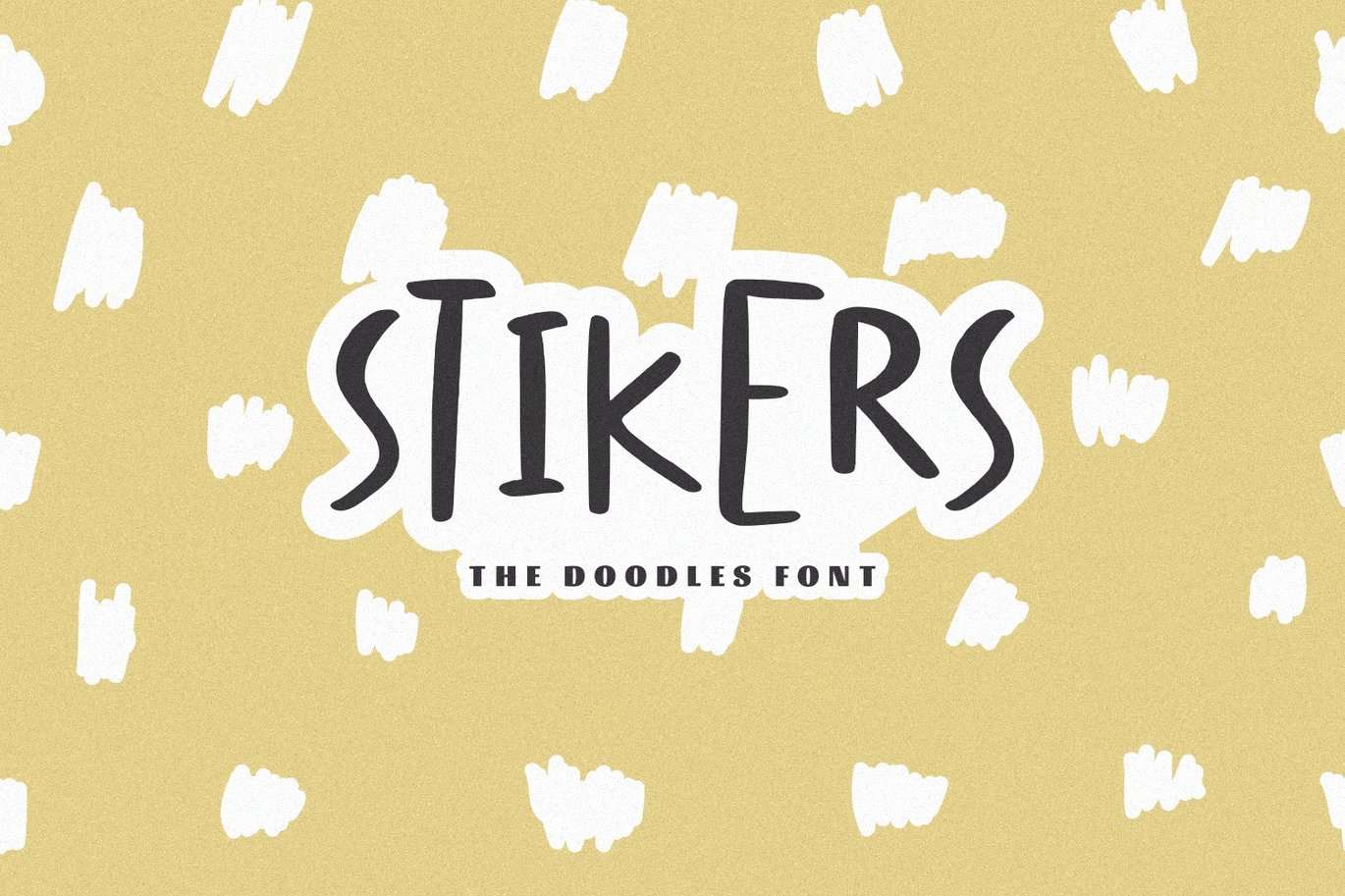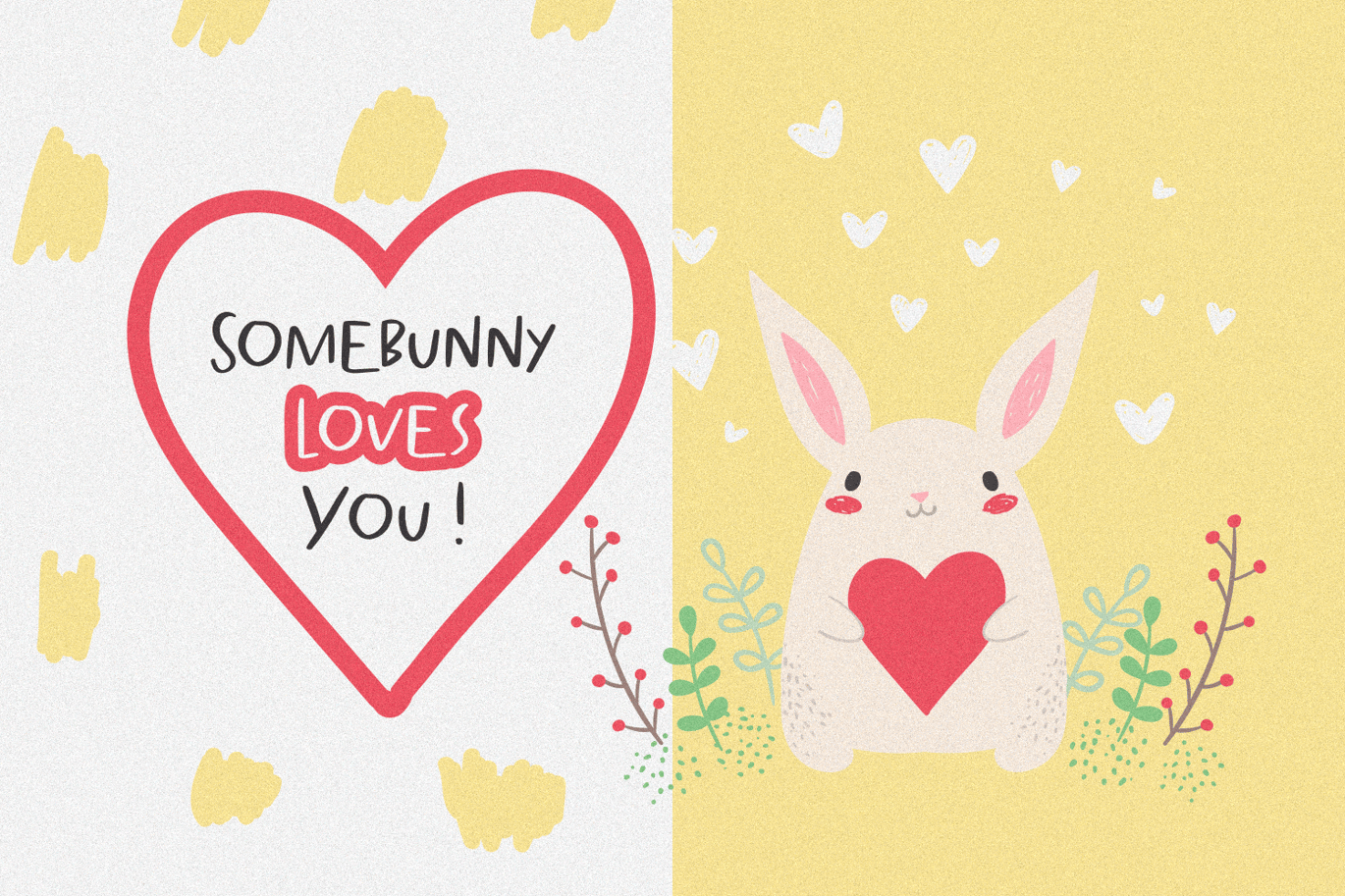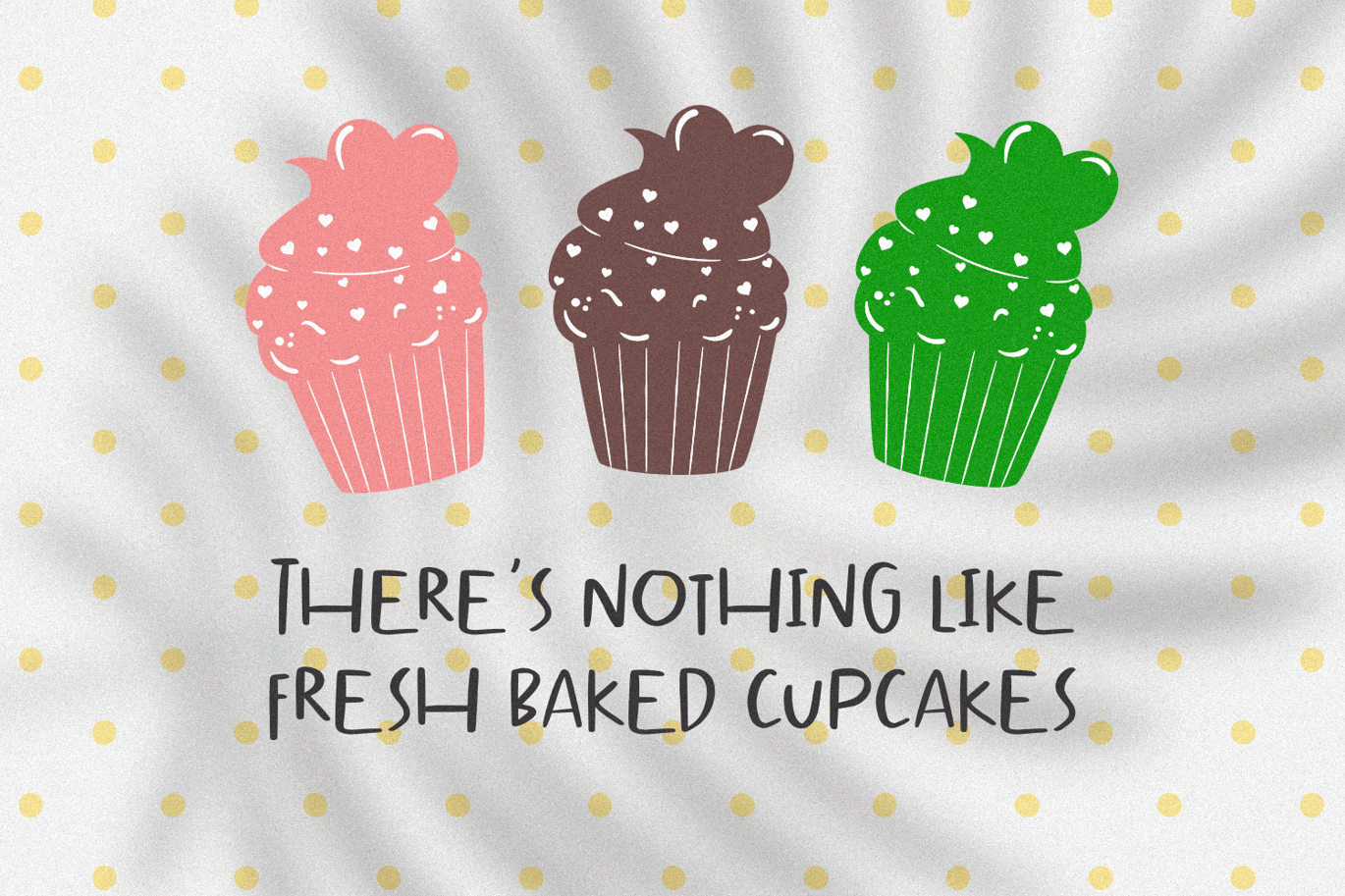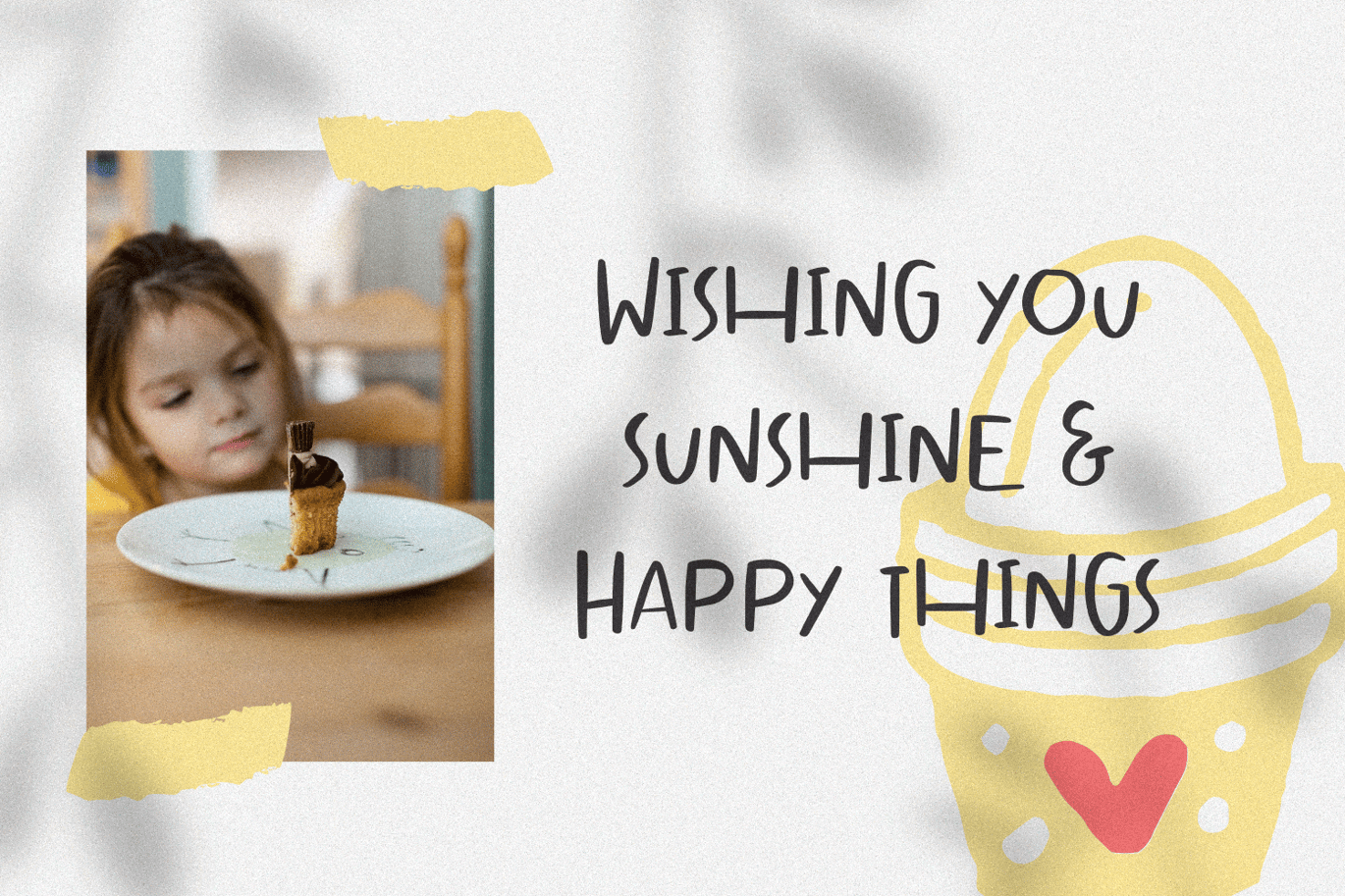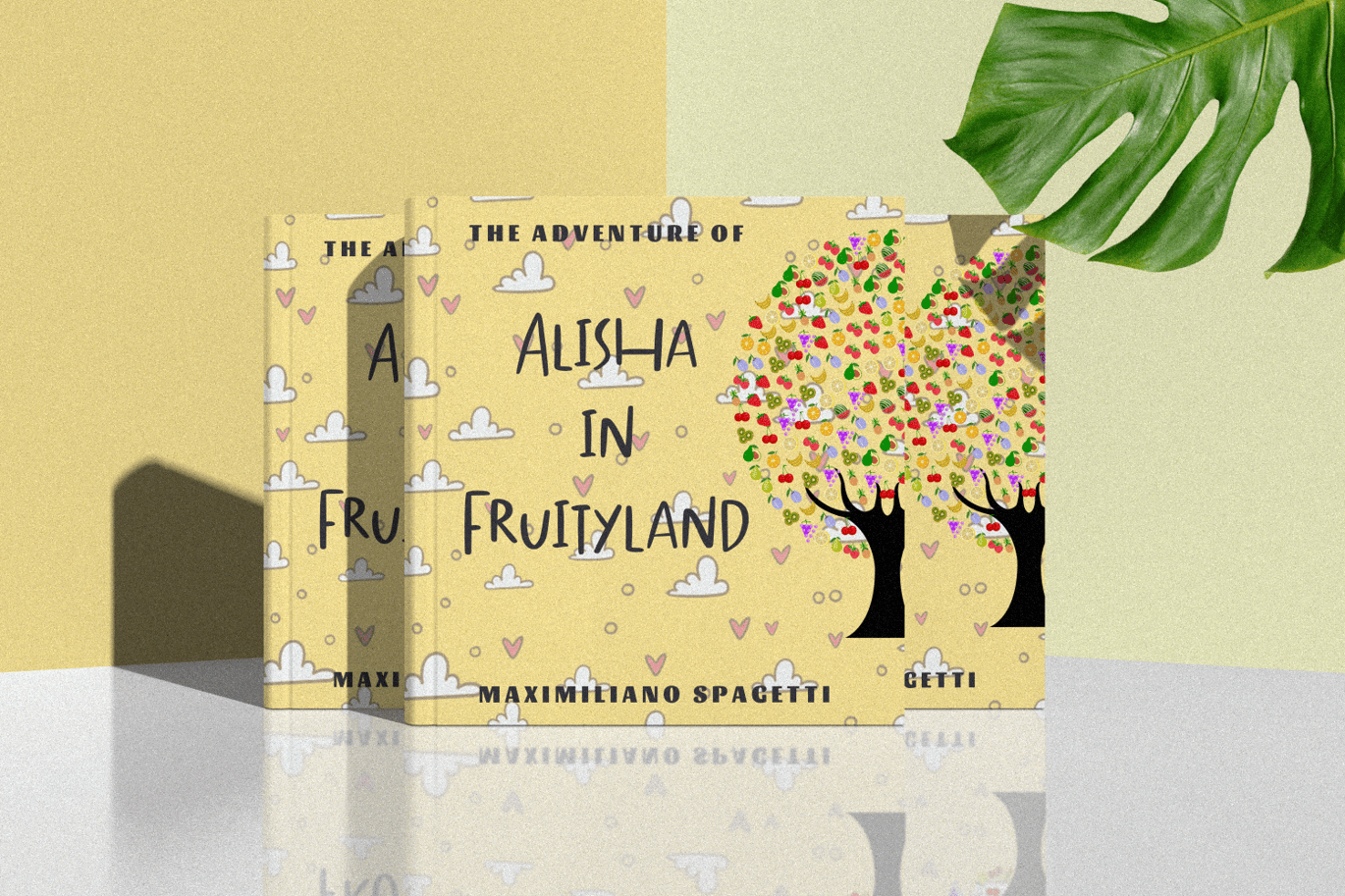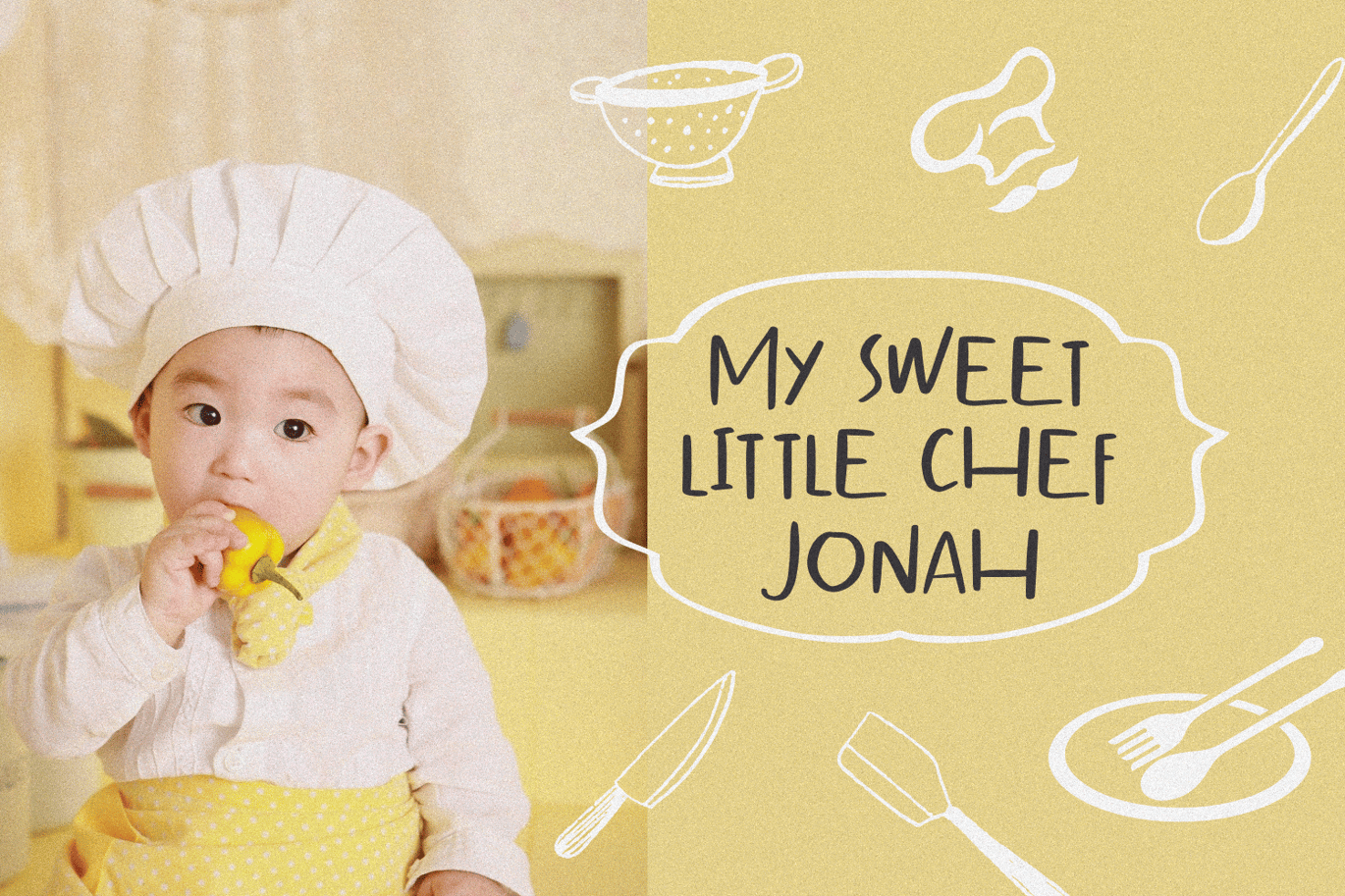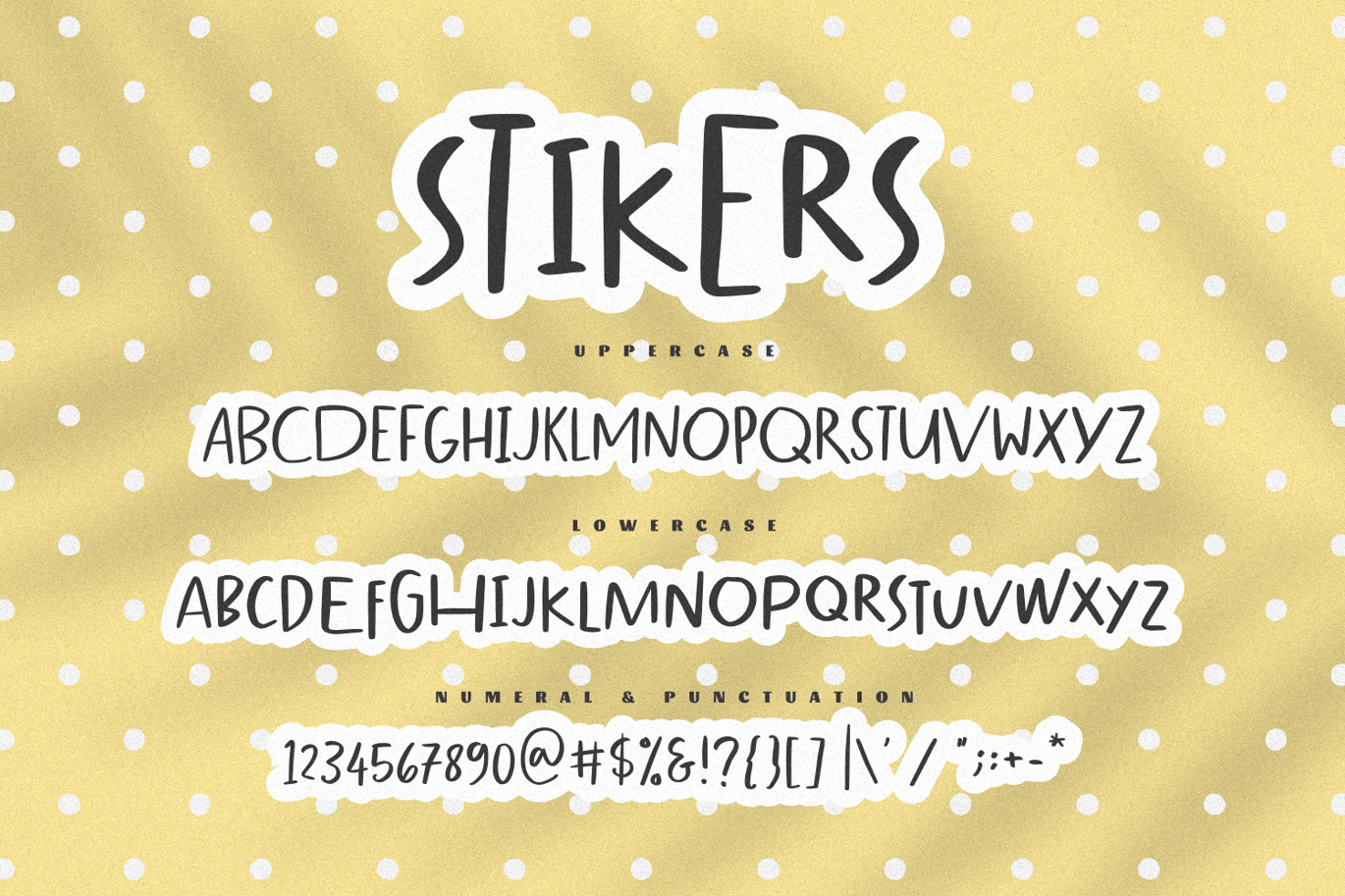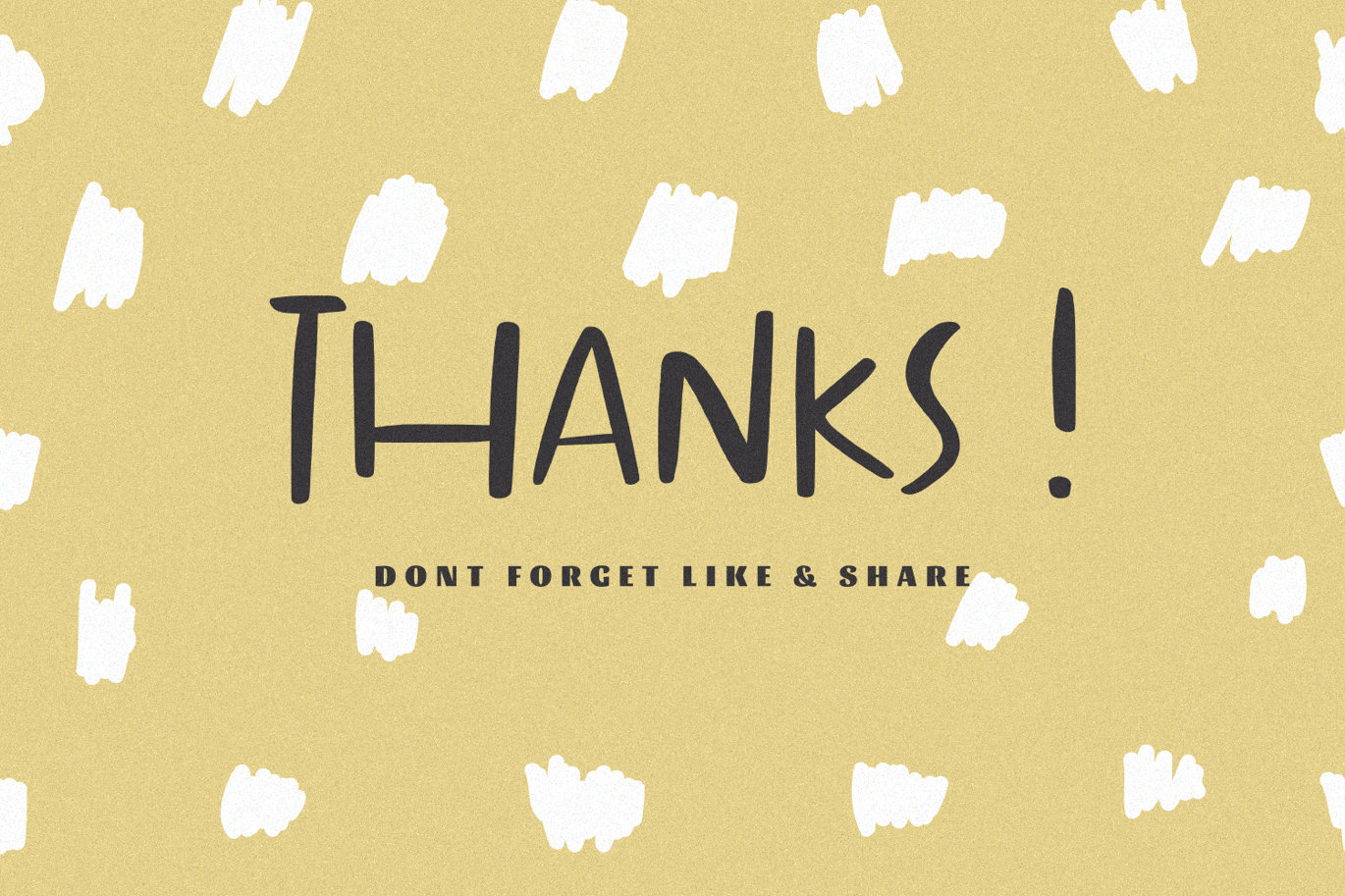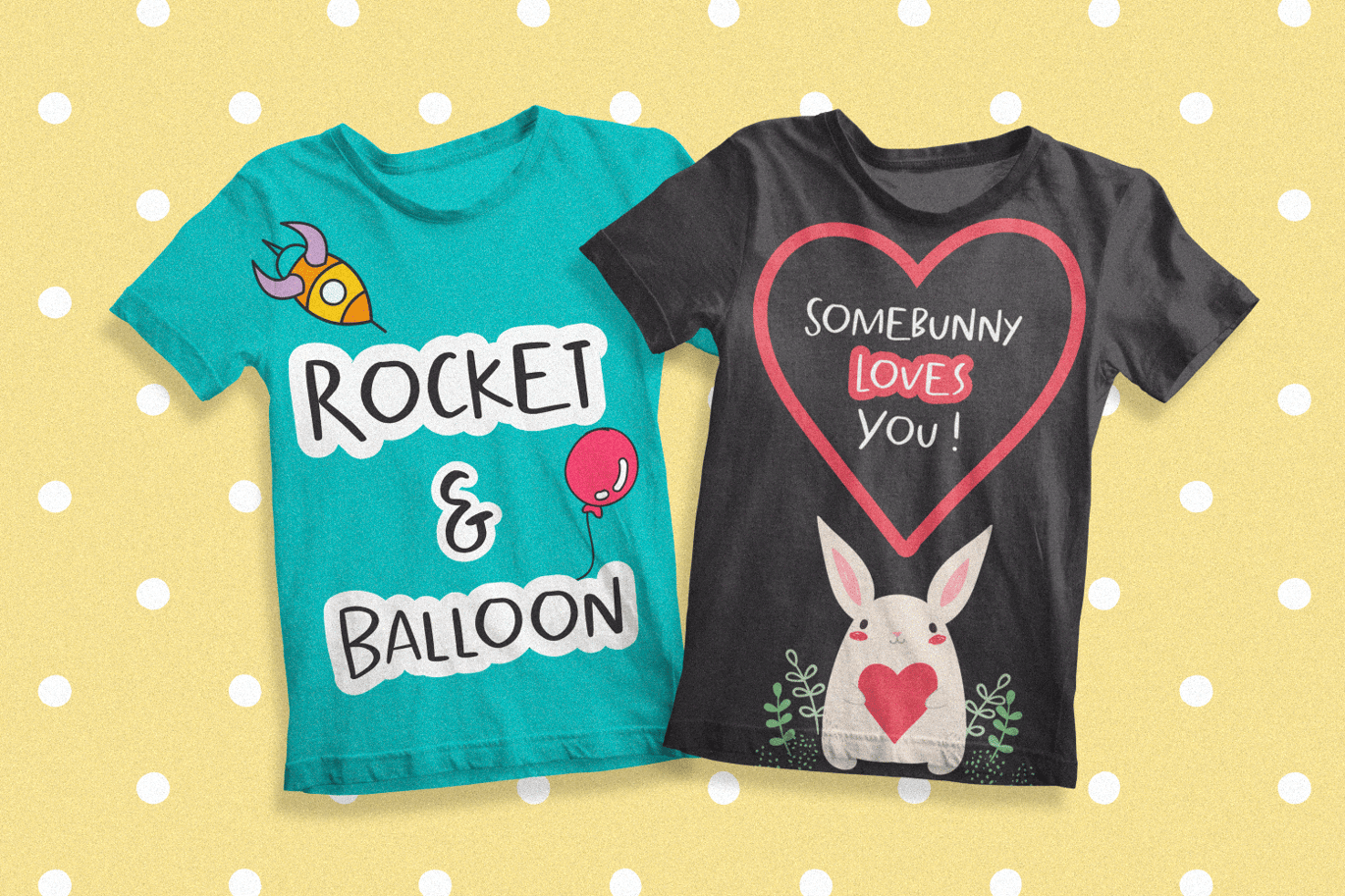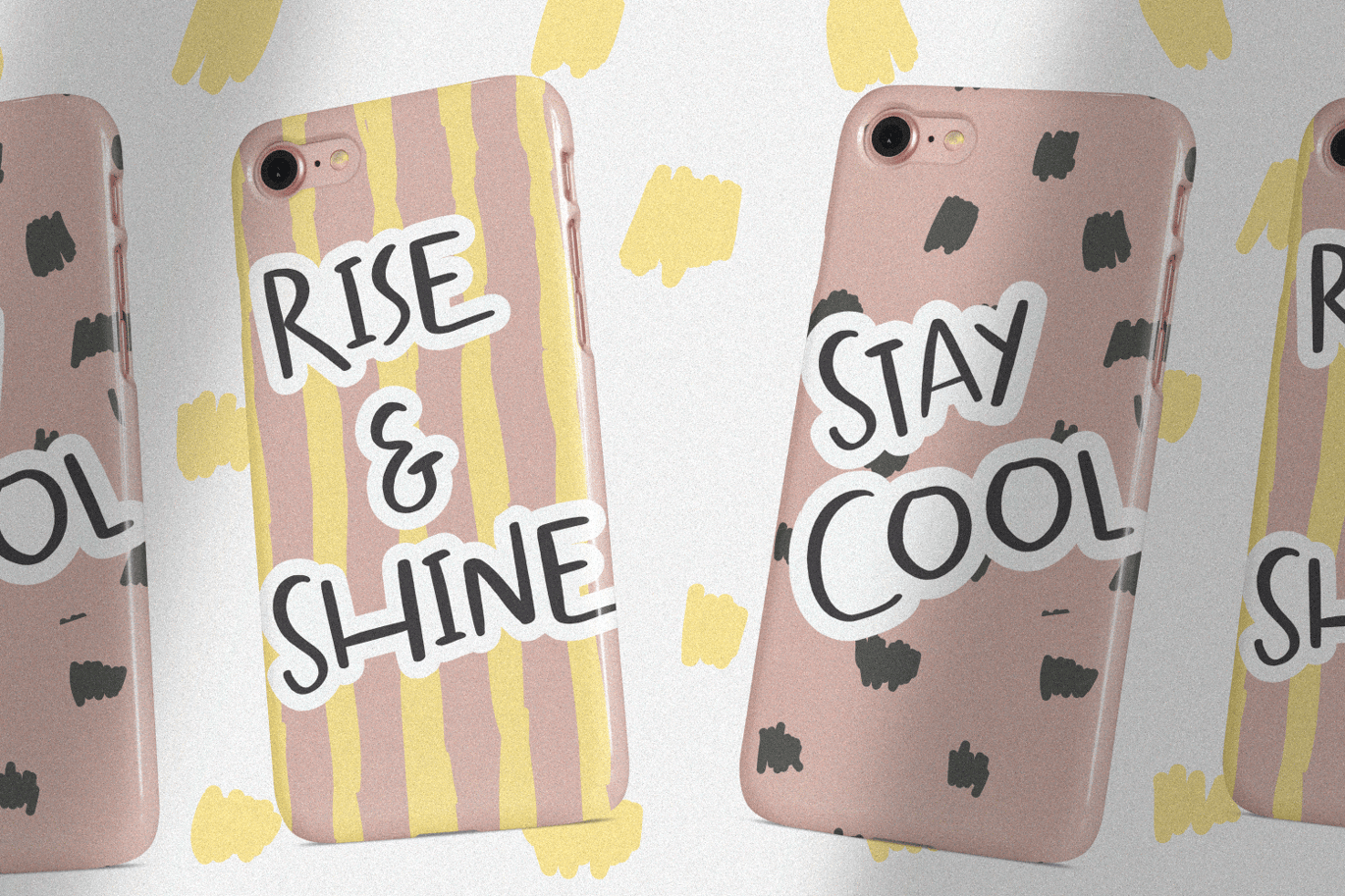
Stikers – The Doodles Font
Stikers – The Doodles Font, every single letter has been carefully crafted to make your text looks beautiful. it’s perfect for logos, name cards, magazine layouts, invitations, headers, or even large-scale artwork.
- Stikers font including upper & lowercase characters, numerals and more of symbols.